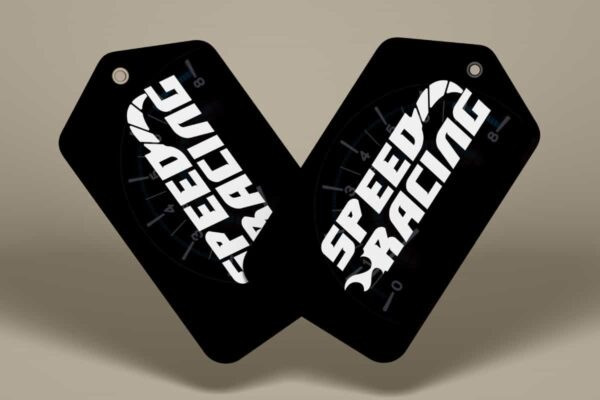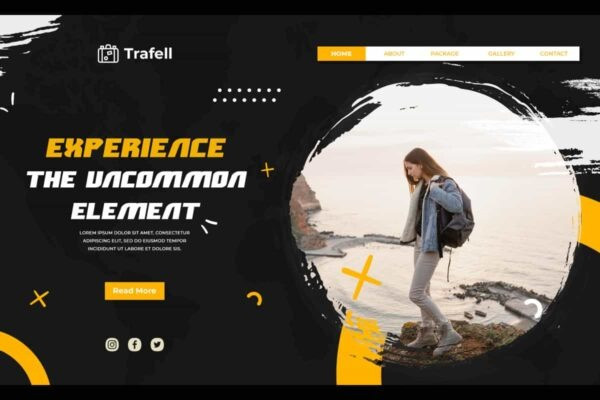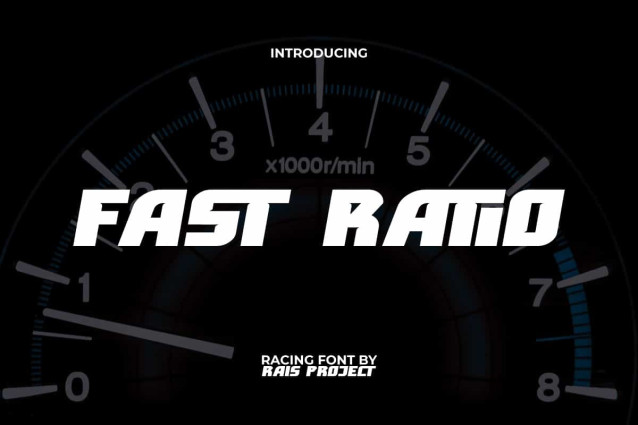
Fast Ratio Font
Fast Ratio Font is a cool and stylish racing font, created by RaisProject. This font has bold letter characters so it is easy to read and standout in every draft. It will be good for any designs, such as custom design, poster, product packaging, quotes, poster, signage, brand image, advertisement, invitation, label, marketing material, stationery, website page, and more!
Fast Ratio Font includes a full set of ALL CAPS for Uppercase and Lowercase Letters, Numerals, large range of Punctuation, and Ligature character. This stylish font will be suitable for various industries, such as fashion, automotive, sports, game, barber shop, cafe, event or festival, photography, printing, publishing, etc.